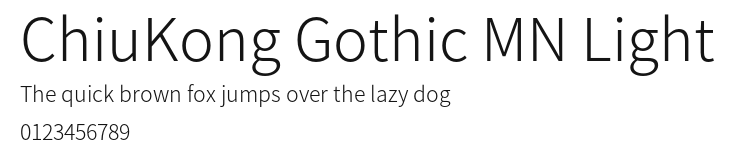
• Font Name: ChiuKong Gothic MN Light
• Full Font Name: ChiuKong Gothic MN Light
• Designer: Ryoko NISHIZUKA 西塚涼子 (kana, bopomofo & ideographs); Paul D. Hunt (Latin, Greek & Cyrillic); Sandoll Communications 산돌커뮤니케이션, Soo-young JANG 장수영 & Joo-yeon KANG 강주연 (hangul elements, letters & syllables)
• Description: Dr. Ken Lunde (project architect, glyph set definition & overall production); Masataka HATTORI 服部正貴 (production & ideograph elements)
About ChiuKong Gothic MN Light.otf
ChiuKong Gothic MN Light.otf is a modern, elegant sans-serif font designed for ultimate readability and visual harmony. Perfect for branding, headlines, web design, and print materials.